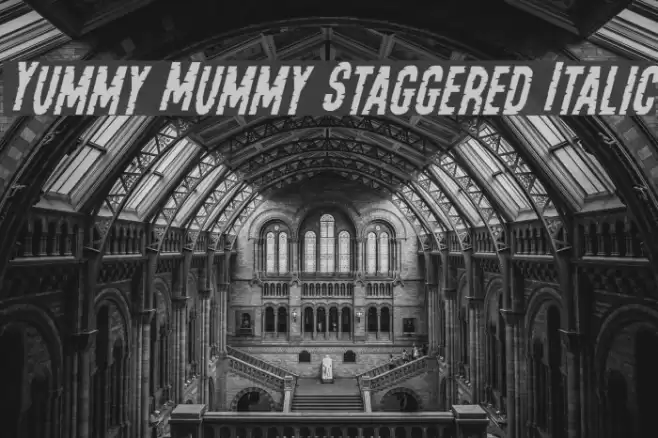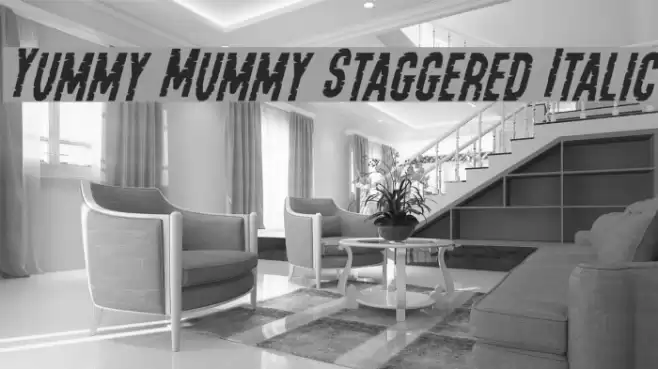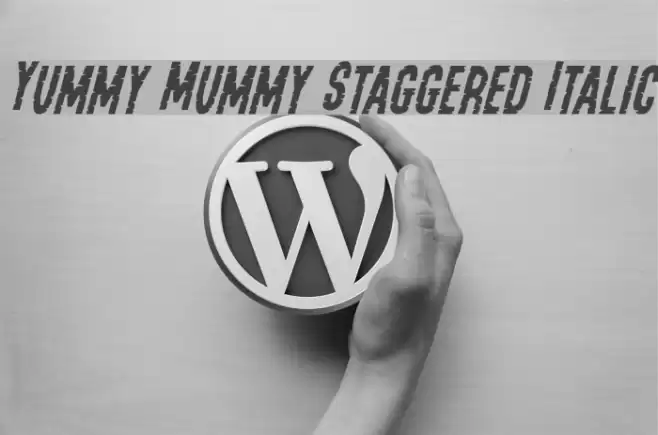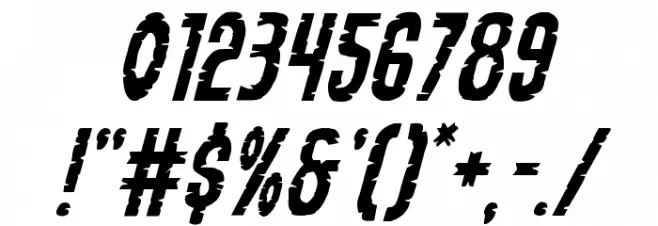
Yummy Mummy Staggered Italic Font
Yummy Mummy Staggered Italic Description
This font features a bold, staggered design with an italic slant, creating a dynamic and energetic appearance. The characters are heavily stylized with a jagged, distressed look, giving it a sense of movement and urgency. The uppercase and lowercase letters maintain a consistent style, with sharp angles and a slightly condensed form. Numbers and special characters follow the same aesthetic, ensuring uniformity across all glyphs. The font's unique style makes it stand out, suitable for projects that require a bold statement.
A bold, staggered italic font with a dynamic, distressed style from Uncategorized fonts.
- Proposed Projects: Ideal for posters, music album covers, edgy branding, or any project needing a bold, energetic typeface.
- Overall Style: Modern, Energetic